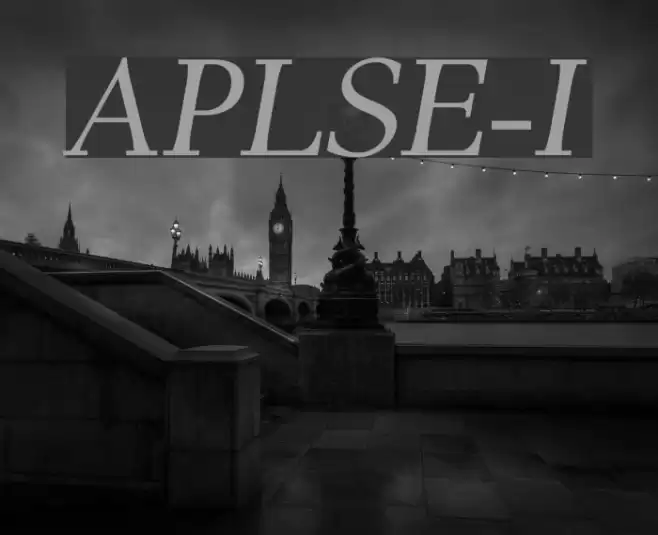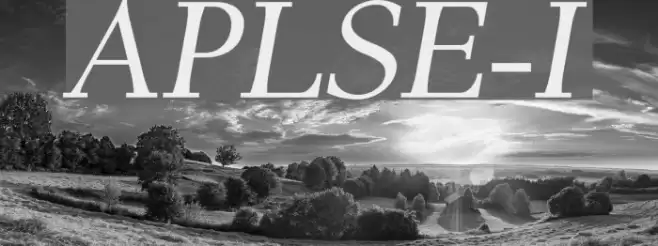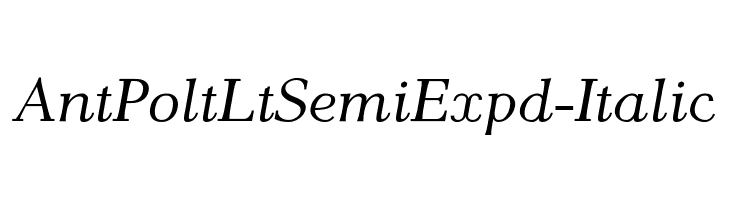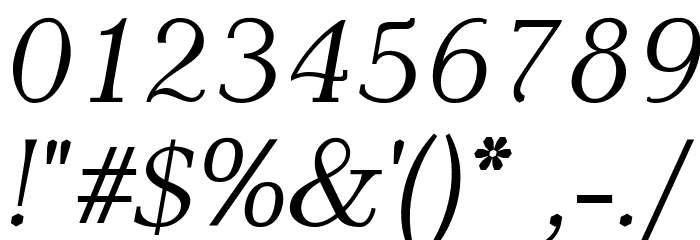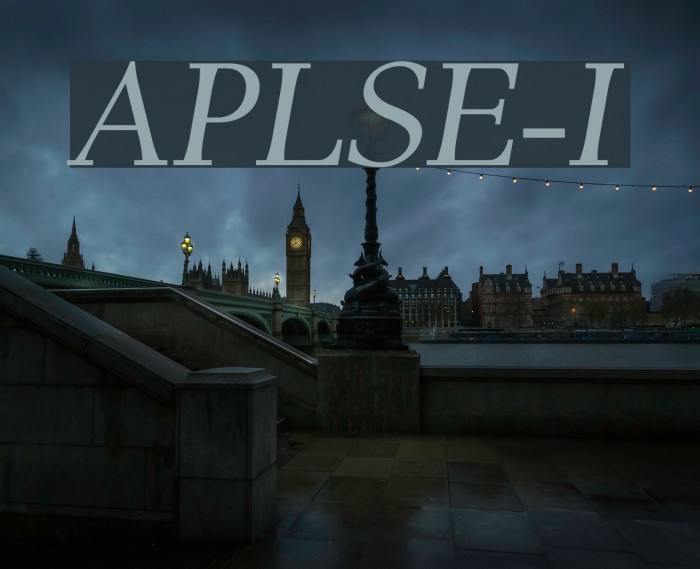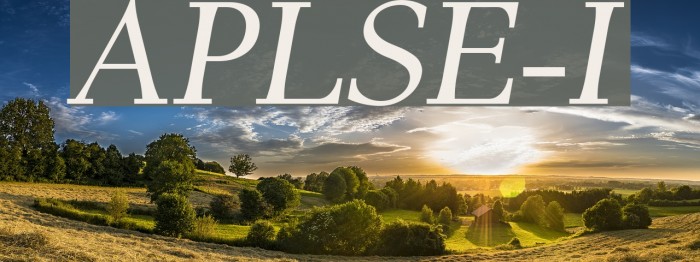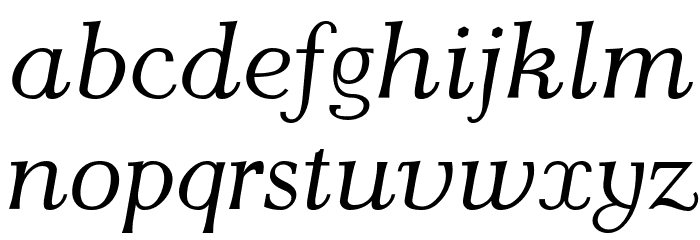
AntPoltLtSemiExpd-Italic Font
AntPoltLtSemiExpd-Italic Description
This font features a classic serif style with a modern twist, characterized by its semi-expanded width and elegant italic slant. The letters are gracefully elongated, providing a sense of sophistication and fluidity. The uppercase characters maintain a strong presence, while the lowercase letters offer a more delicate touch. The numerals are clear and balanced, ensuring readability. Special characters are thoughtfully designed to complement the overall aesthetic. The font's contrast is medium, with a noticeable difference between thick and thin strokes, enhancing its legibility and visual appeal.
A semi-expanded, elegant serif font with a modern italic style from Uncategorized fonts.
- Proposed Projects: Ideal for editorial design, book covers, elegant branding, and formal invitations.
- Width: Expanded